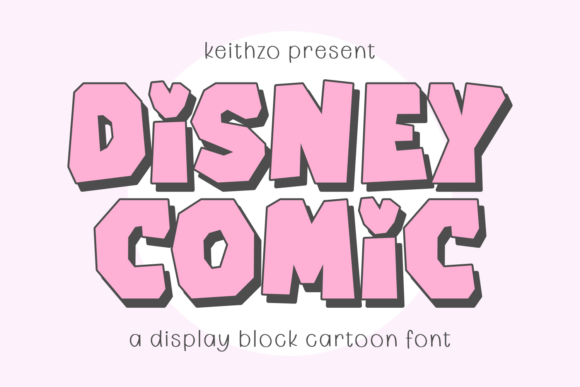
Disney Comic Font: The Ultimate Guide to Adding Whimsy and Charm to Your Designs
Are you looking for a font that can add a touch of magic to your designs? Look no further than the Disney Comic Font. This delightful display cartoon typeface is saturated with charm and whimsy, making it the perfect fit for a multitude of mediums. In this article, we’ll explore the features and benefits of the Disney Comic Font and show you how to use it to elevate your designs.
What is Disney Comic Font?
Disney Comic Font is a cheerful and playful typeface that is reminiscent of classic comic books and cartoons. It’s a display font that is designed to grab attention and add a sense of jubilation to your designs. With its bold lines, bright colors, and whimsical flair, Disney Comic Font is sure to make your designs stand out from the crowd.
Features of Disney Comic Font
So, what makes Disney Comic Font so special? Here are just a few of its key features:
- Unique and playful design: Disney Comic Font has a one-of-a-kind design that’s sure to add a touch of whimsy to your designs.
- Bold and eye-catching: With its bold lines and bright colors, Disney Comic Font is designed to grab attention and make a statement.
- Versatile: Disney Comic Font can be used in a variety of mediums, from greeting cards and t-shirt designs to school logos and online enterprises.
- Easy to read: Despite its playful design, Disney Comic Font is easy to read and understand, making it perfect for use in a variety of applications.
Benefits of Using Disney Comic Font
So, why should you use Disney Comic Font in your designs? Here are just a few of the benefits:
- Adds a touch of magic: Disney Comic Font has a way of adding a touch of magic to your designs, making them more engaging and memorable.
- Elevates mood: The cheerful design of Disney Comic Font is sure to elevate the mood of your designs, making them more enjoyable to look at and interact with.
- Perfect for kids and adults alike: Disney Comic Font is a font that can be enjoyed by kids and adults alike, making it perfect for use in a variety of applications.
- Increases engagement: The playful design of Disney Comic Font is sure to increase engagement and interaction with your designs.
Using Disney Comic Font in Different Mediums
One of the best things about Disney Comic Font is its versatility. Here are just a few examples of how you can use it in different mediums:
Greeting Cards
Disney Comic Font is perfect for use in greeting cards. Its cheerful design and playful flair make it a great way to add a touch of personality to your cards.
T-Shirt Designs
Disney Comic Font is also great for use in t-shirt designs. Its bold lines and bright colors make it a great way to add a touch of whimsy to your designs.
School Logos
Disney Comic Font can even be used in school logos. Its playful design and cheerful flair make it a great way to add a touch of personality to your school’s branding.
Online Enterprises
Finally, Disney Comic Font can even be used in online enterprises. Its bold lines and bright colors make it a great way to add a touch of whimsy to your website or social media profiles.
Tips for Using Disney Comic Font
Here are just a few tips for using Disney Comic Font:
- Use it sparingly: Disney Comic Font is a bold and eye-catching font, so it’s best to use it sparingly. Use it to add a touch of whimsy to your designs, but don’t overdo it.
- Pair it with other fonts: Disney Comic Font can be paired with other fonts to create a unique and interesting design.
- Experiment with colors: Disney Comic Font comes in a variety of colors, so don’t be afraid to experiment and find the perfect color for your design.
In conclusion, Disney Comic Font is a unique and playful typeface that is sure to add a touch of magic to your designs. With its bold lines, bright colors, and whimsical flair, it’s the perfect fit for a multitude of mediums. Whether you’re designing greeting cards, t-shirt designs, school logos, or online enterprises, Disney Comic Font is sure to elevate the mood of your designs and make them more engaging and memorable.